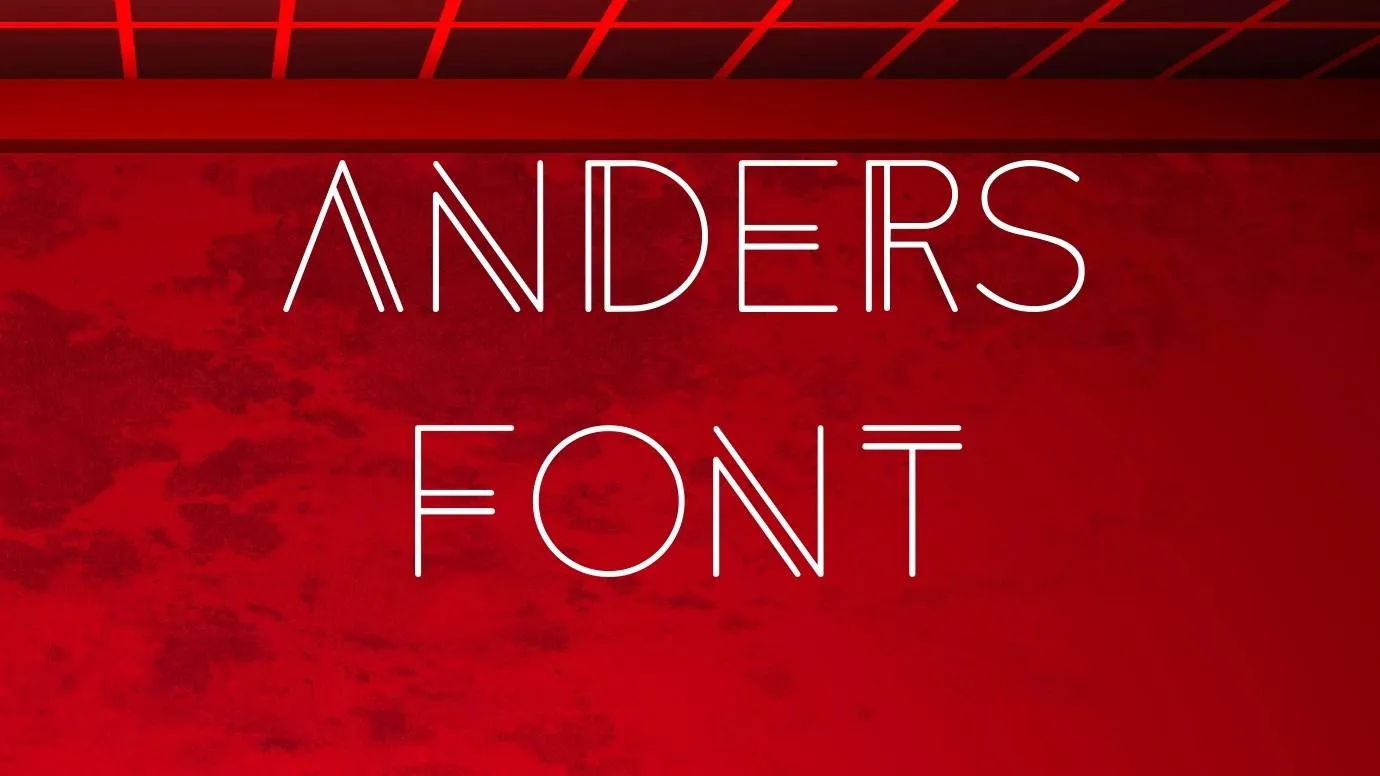
Anders Font is a group member of the sans-serif typeface family. It is a humanist design, featuring smooth curves and low stroke contrast. The typeface is intended for body text and has been used by a number of high-profile companies, including Facebook, IBM, and Sony.
The typeface is intended for use in body text and has been widely adopted by magazines, newspapers, and web designers. A similar font of this typeface is Average Font.
This typeface is a versatile typeface that can be used for a variety of applications. It has a modern, yet timeless feel, and is perfect for both web and print design. If you’re looking for a typeface that is both stylish and easy to read, It is a great choice.
Designer of Anders Font
This lovely and attractive style of texture is designed by one of the famous graphic designers which are known, Tom Anders Watkins.
This typeface is released in a single style of font, this regular style of font consists of glyphs, digits, capital letters, small letters, punctuation, a set of characters, and a wide number of languages supports.
| Designer | Tom Anders Watkins |
What type of font is Anders Font?
This typeface is a group member of the sans-serif typeface family. It is a humanist design, featuring smooth curves and low stroke contrast.
What font goes with Anders Font?
This is a modern typeface of sans serif typeface, where a lot of matches are found but, the most similar font to this texture is the Nunito Font.
Who created Anders Font?
This lovely and attractive style of texture is designed by one of the famous graphic designers which are known, Tom Anders Watkins.